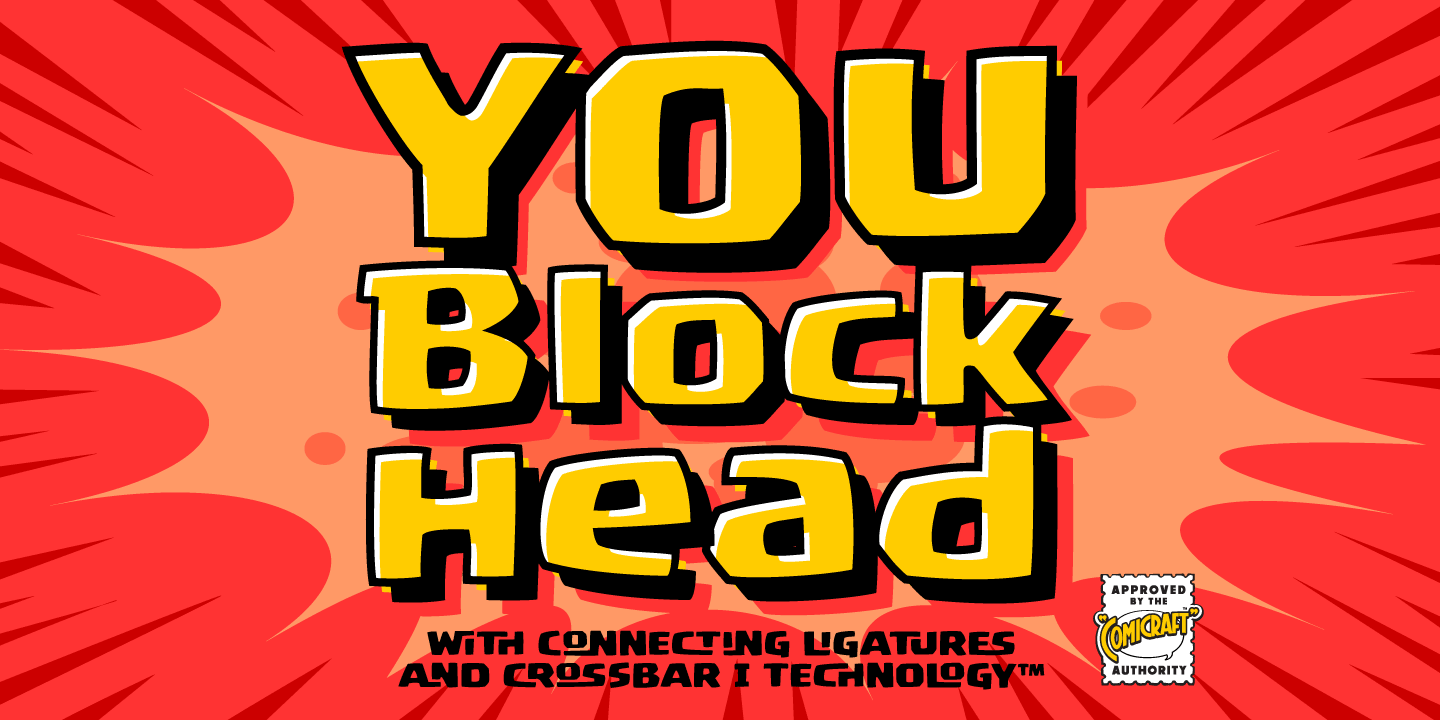
You Blockhead Font is perfect for comic book titles, cartoon logos, children's book covers, playful website headers, gaming interfaces, animated movie posters, merchandise designs, social media graphics, and fun branding projects that require a bold, attention-grabbing typeface.
What makes You Blockhead Font so exciting is its distinctive blocky character design that instantly captures attention with its bold, cartoon-inspired appearance. This font brings a sense of fun and playfulness to any design project, making it ideal for creators who want to add personality and charm to their work. The thick, sturdy letterforms create excellent readability while maintaining a whimsical aesthetic that appeals to both children and adults.
The You Blockhead Font family typically includes regular weight variations, with some versions offering bold and light alternatives. The character set usually encompasses uppercase and lowercase letters, numbers, punctuation marks, and special symbols, providing designers with comprehensive typographic options for their creative projects.
You Blockhead Font Free Download has become increasingly popular among graphic designers, web developers, and creative professionals who seek distinctive typography solutions. This versatile typeface works exceptionally well in digital media, print designs, and multimedia presentations where a friendly, approachable aesthetic is desired.
The font's unique blocky structure makes it particularly effective for headlines, logos, and display text where maximum impact is essential. Its cartoon-like qualities make it an excellent choice for entertainment industry projects, educational materials, and youth-oriented branding campaigns.
Designers appreciate You Blockhead Font for its ability to convey energy and enthusiasm while maintaining professional quality standards. The font's clean construction ensures it performs well across various media formats, from large-scale billboards to small mobile device screens.
Whether you're working on animated projects, comic book layouts, children's publications, or contemporary branding initiatives, You Blockhead Font delivers the perfect balance of fun and functionality. Its distinctive character shapes and excellent legibility make it a valuable addition to any designer's typography collection.
The font's versatility extends beyond traditional applications, making it suitable for modern digital interfaces, app designs, and interactive media where engaging typography enhances user experience and brand recognition.